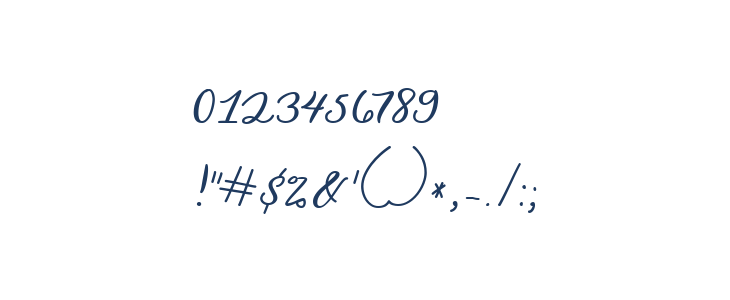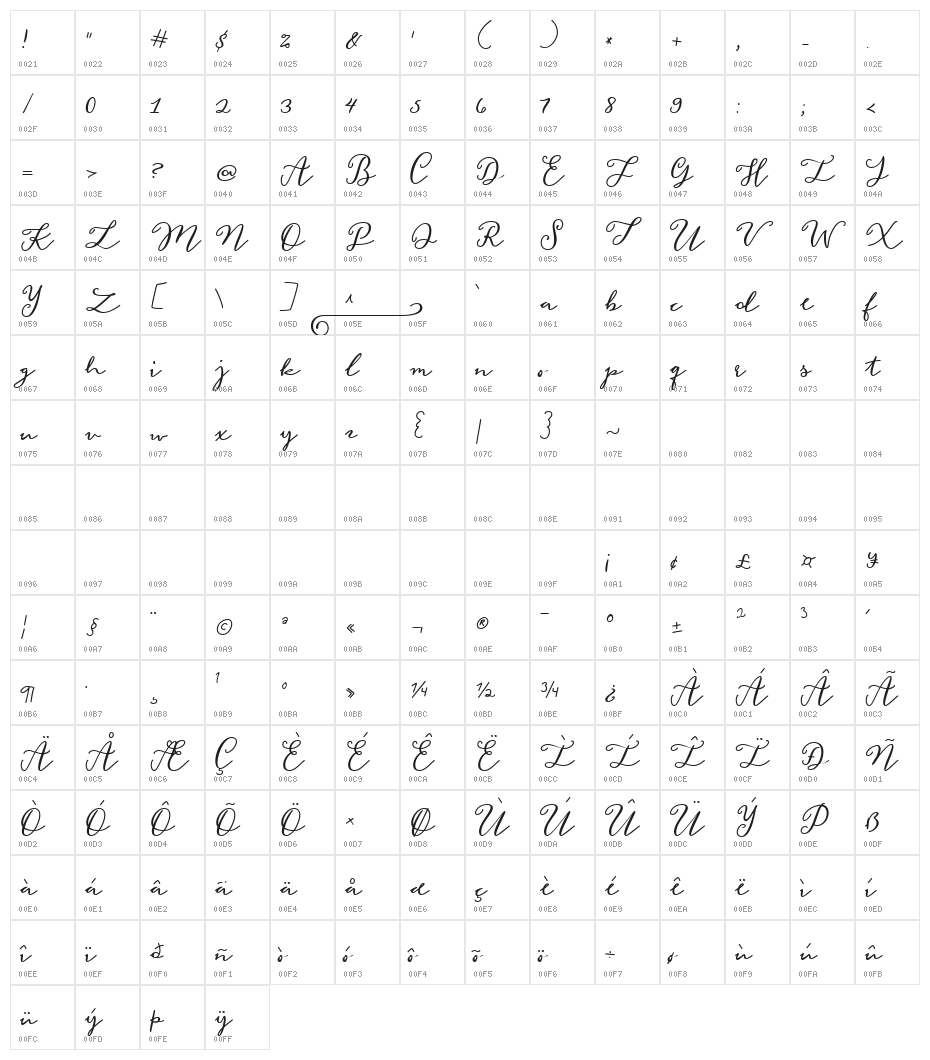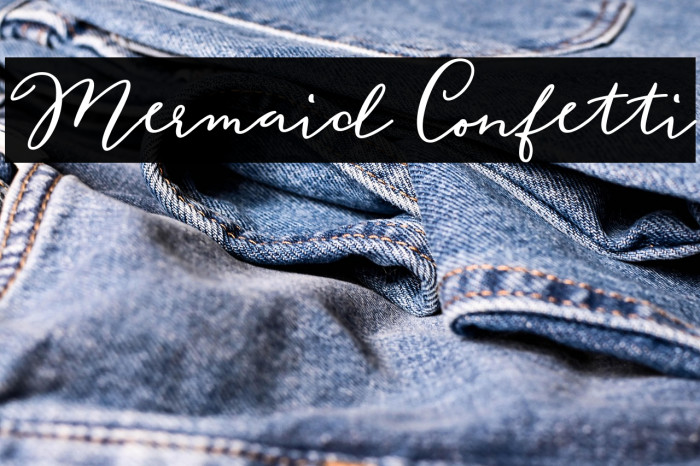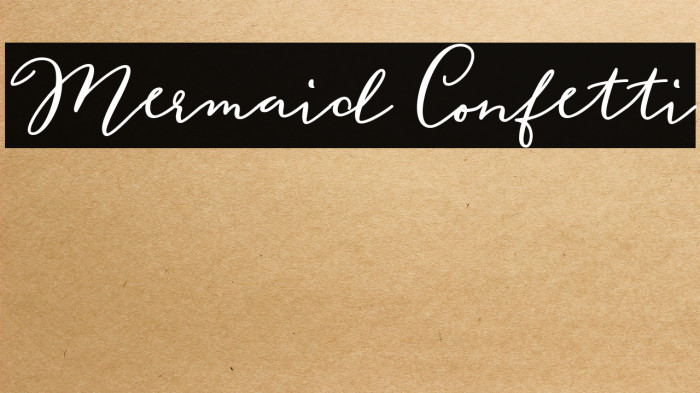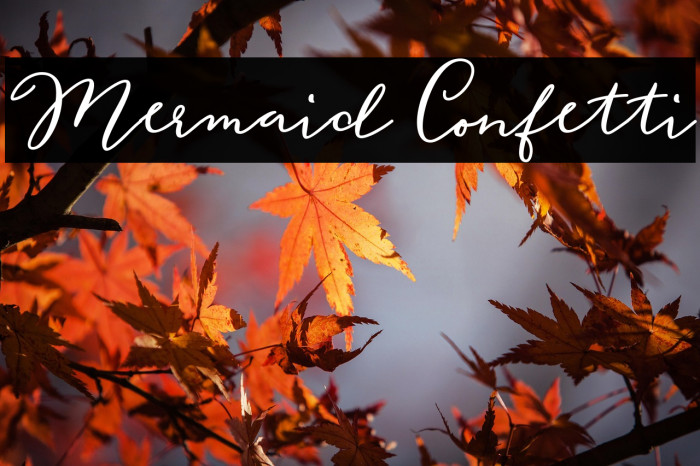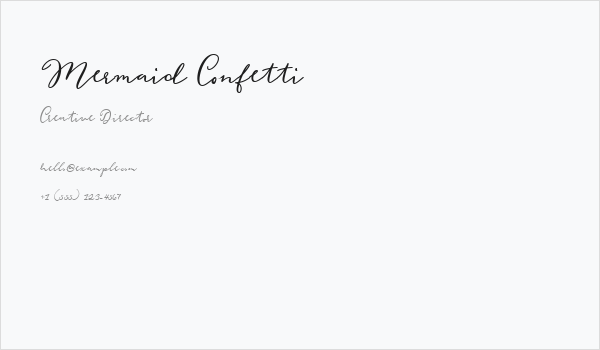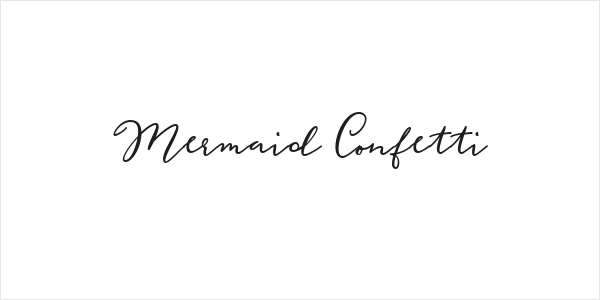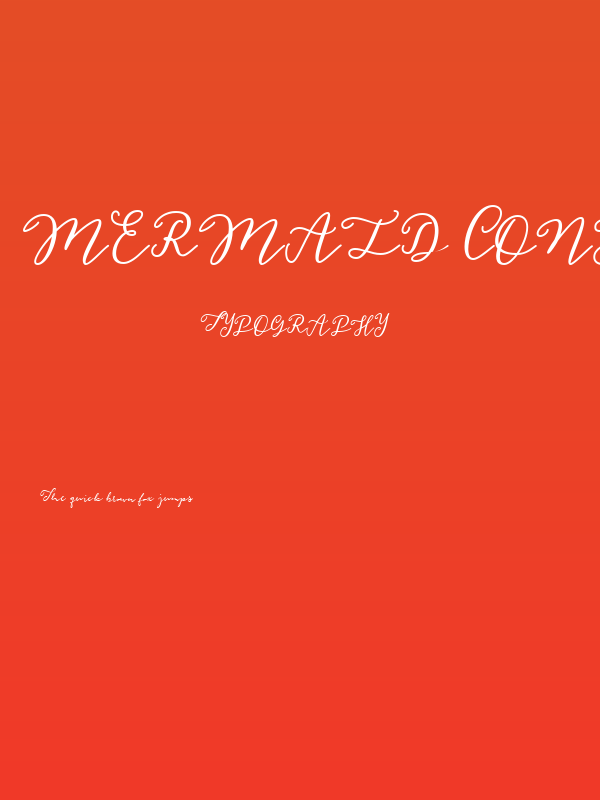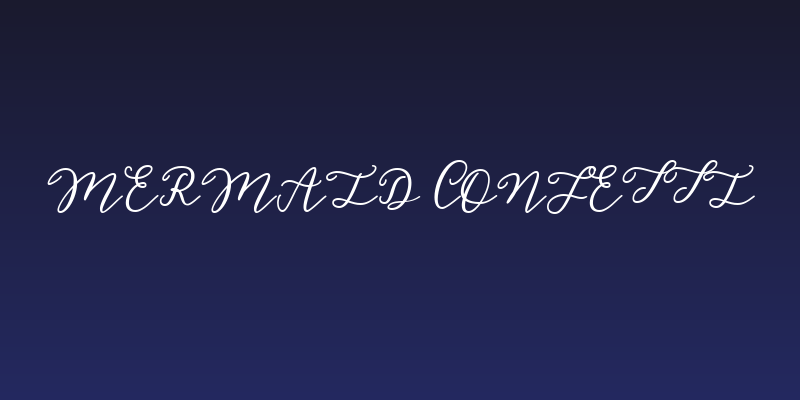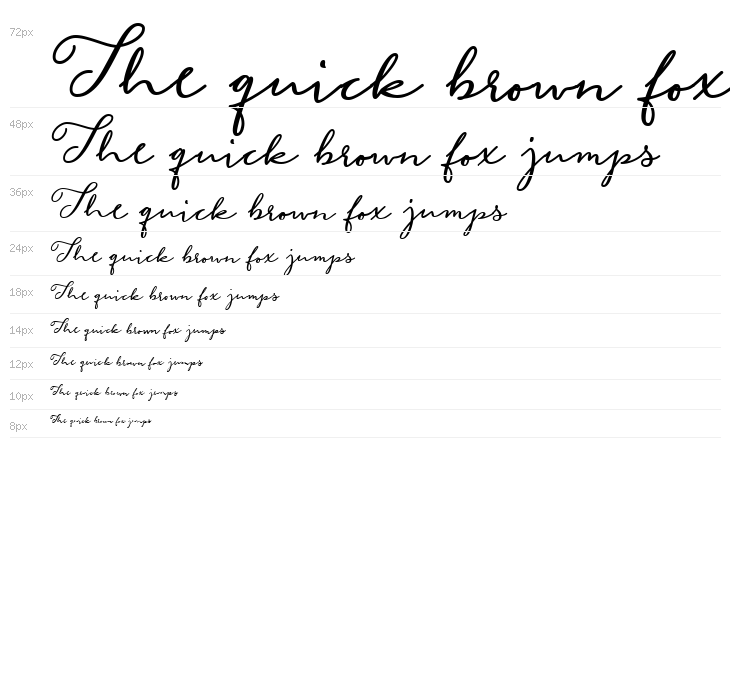
Mermaid Confetti Font
Mermaid Confetti Description
This elegant script font features a flowing, cursive style with smooth, connected strokes that mimic the fluidity of handwriting. The uppercase letters are ornate and slightly larger, adding a touch of sophistication, while the lowercase letters maintain a consistent flow, enhancing readability. The numerals are distinct yet harmonize well with the overall script style. Special characters are thoughtfully designed to match the font's aesthetic, making it versatile for various uses. The font's graceful curves and loops give it a lively and dynamic appearance, perfect for adding a personal touch to any project.
Overall StyleElegant
Use CaseLogos, Invitations, Decorative text
Proposed ProjectsIdeal for wedding invitations, greeting cards, branding, and elegant packaging designs.